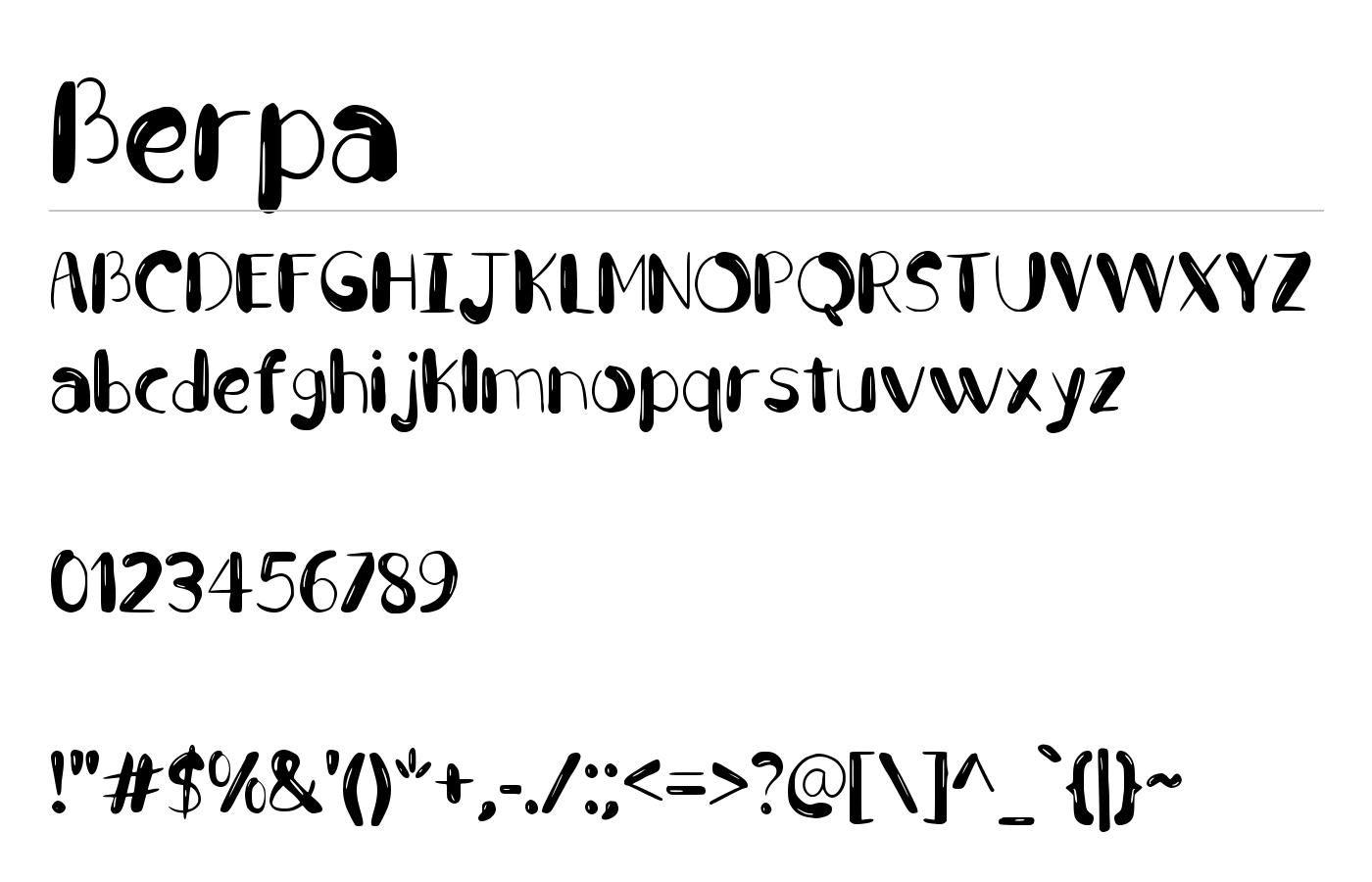
Berpa is a playful and distinctive handwritten sans serif font characterized by its uneven stroke weights and quirky, rounded letterforms that mix thick and thin elements. Its casual yet bold style gives it a warm, approachable feel, perfect for creative branding, children's products, and informal headlines where a touch of personality and friendliness is desired. This font shines in designs needing a unique, handcrafted look that stands out with charm and character.
Berpa Font
About Berpa Font